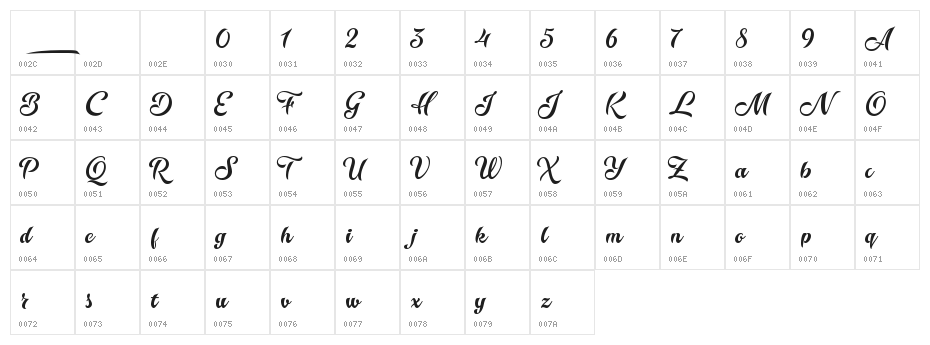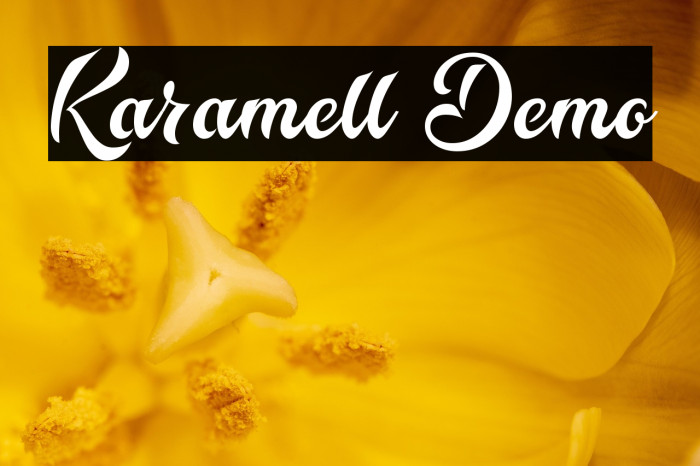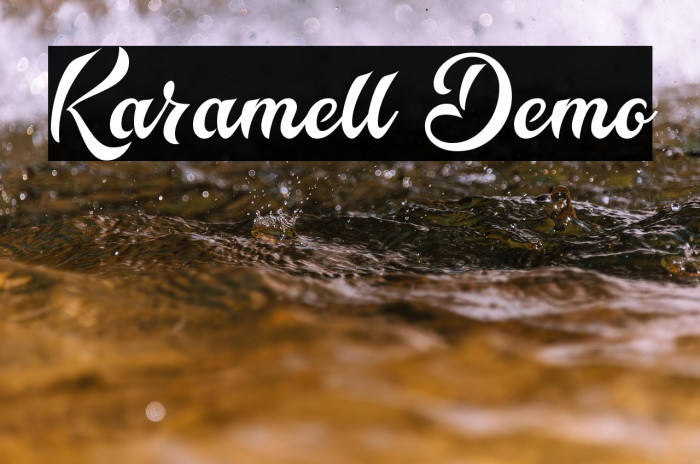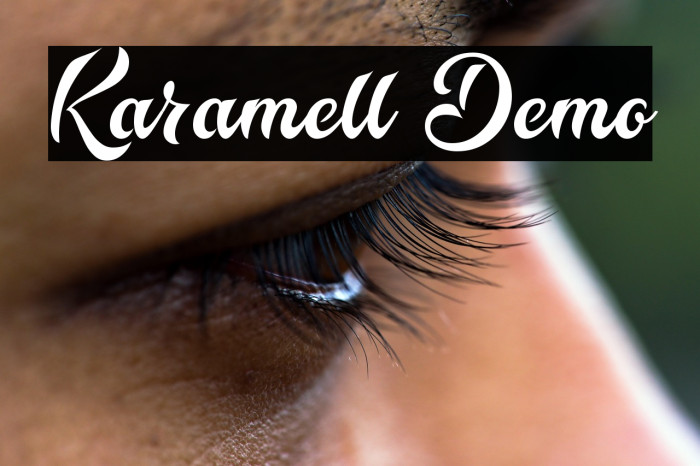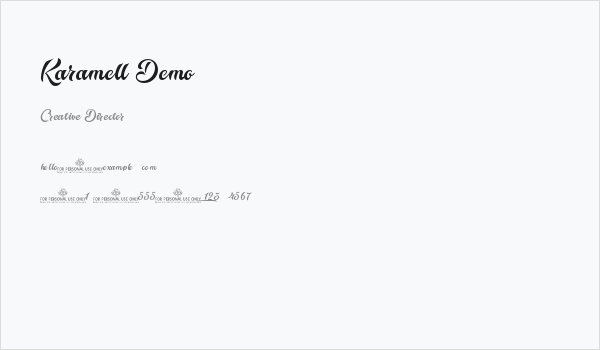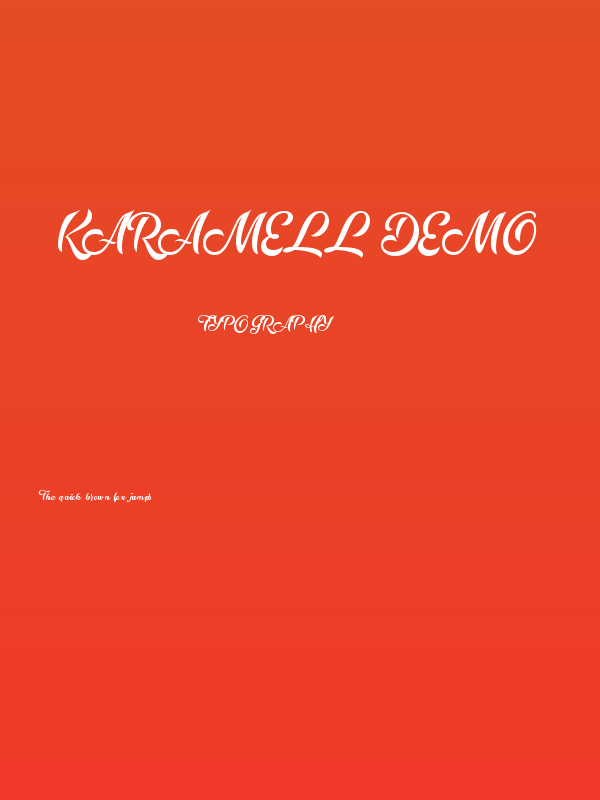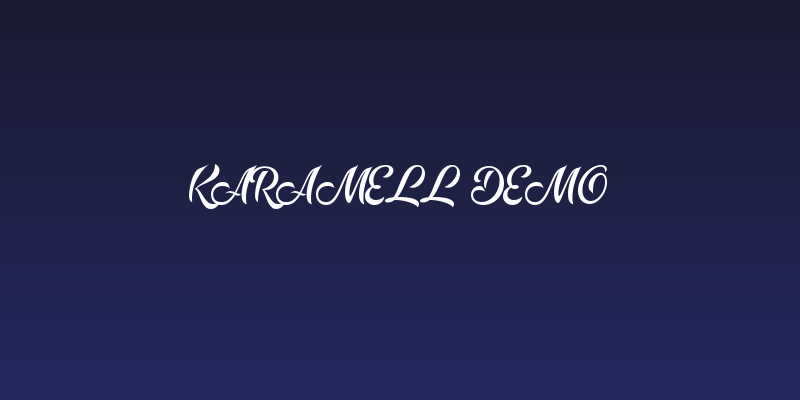
Karamell Demo Font
Karamell Demo Description
This elegant script font features a flowing, cursive style with smooth, sweeping curves and a refined aesthetic. The uppercase letters are characterized by their intricate loops and flourishes, giving them a sophisticated and decorative appearance. The lowercase letters maintain a consistent flow, with gentle slants and rounded forms that enhance readability while retaining a stylish flair. The numerals are designed to complement the letterforms, incorporating similar curves and strokes. Special characters like $?&%!#*= are seamlessly integrated, maintaining the font's cohesive look. This font exudes a sense of grace and fluidity, making it suitable for projects that require a touch of elegance and class.
| Overall Style | Elegant, Decorative |
| Proposed Projects | Ideal for wedding invitations, elegant branding, greeting cards, and luxury product packaging. |